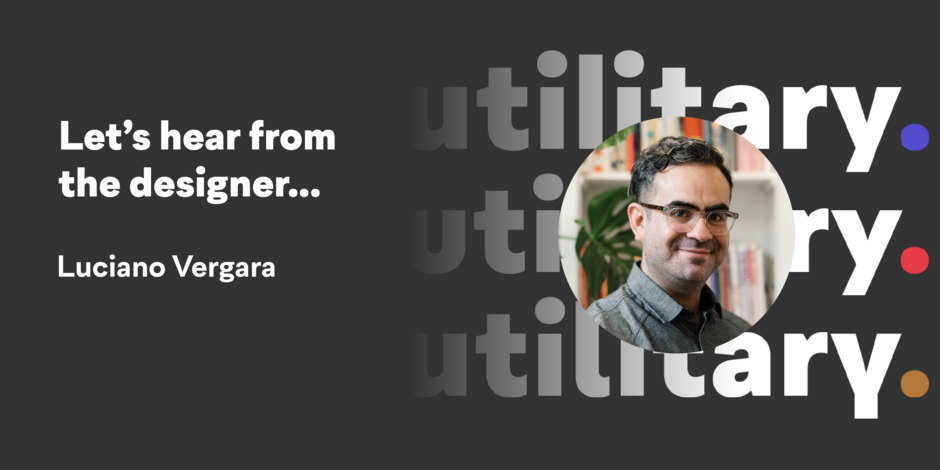
#08 Cordillera by Latinotype
Q1: Where did the idea for the typeface come from? Did you set out to address a specific use or suite of the application? Was this a design you’d had in mind for a while?
Ans: It is necessary that I speak of another typeface first, a few years ago I designed “Internacional”, a neogrotesque display font designed for titles and advertising. I had a lot of fun with that project, it has a great “x” height, some features that I exaggerated and a little Latin American flavor. We had a stroke of luck as the company Zoom commissioned a modified version for titles, this motivated me to work on it again, this time in a text variant, but along the way it took a different path, the proportions and shapes changed, new alternates appeared, it gave it its own personality, suitable for corporate use and body text.
Q2: What should graphic communicators know about the typeface, or how will the family of fonts help them create better designs?
Ans: It is a very functional font, it looks good both in large sizes as in body text, the mixture of neo-grotesque and geometric styles generates a lot of stability and security. Its alternatives are a great option to provide a unique look in corporate or advertising applications.